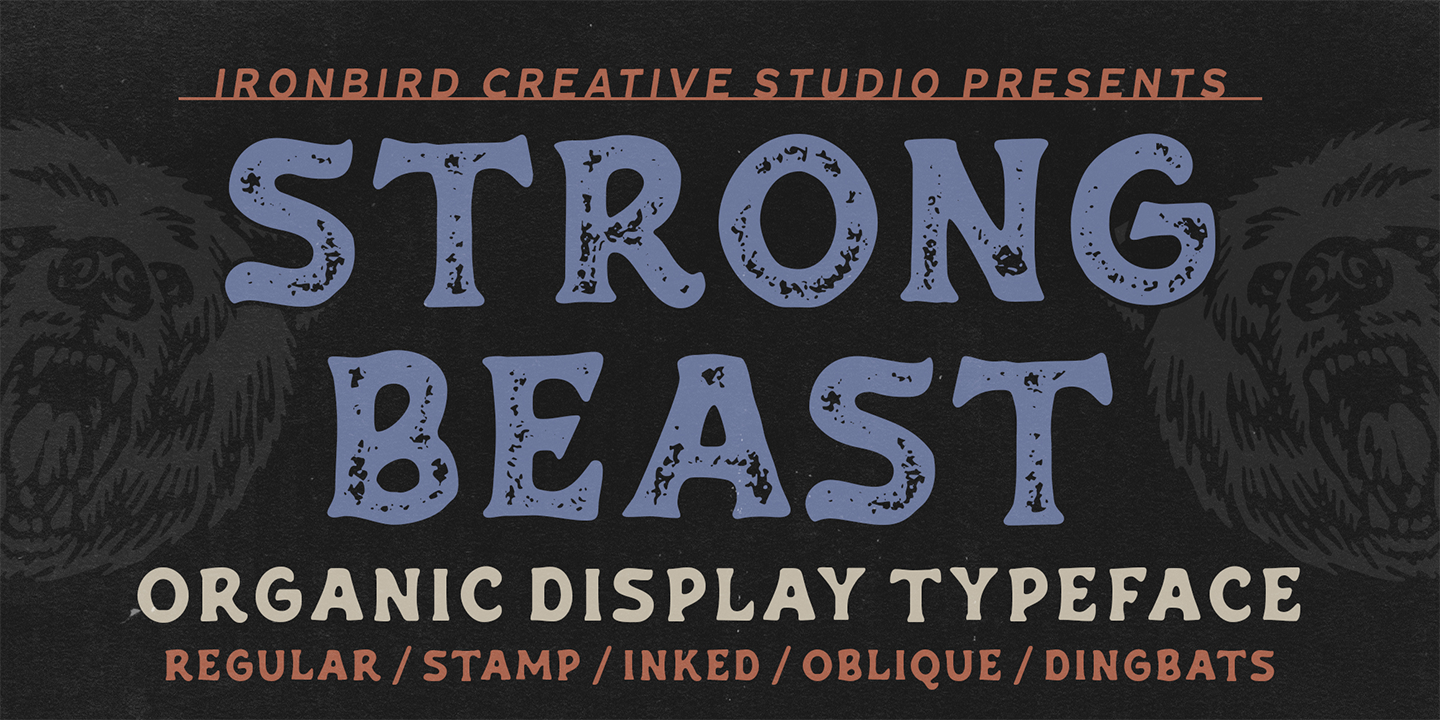
Strong Beast Font Free Download – A ferocious, high-impact display typeface that roars with primal power! Commercial use requires a license, but you can download the free version to unleash its raw energy in your personal projects.
Where Can You Use Strong Beast Font?
This dominant font rules in:
• Fitness/bodybuilding branding (gym logos, supplement packaging)
• Extreme sports graphics (MMA, wrestling, and action sports promotions)
• Fantasy/horror titles (monster-themed games, dark fantasy novels)
• Men's lifestyle branding (barber shops, tattoo parlors, motorcycle clubs)
Why Is Strong Beast Font Exciting?
Strong Beast delivers unmatched typographic aggression with:
Muscular letterforms with exaggerated serifs like claw marks
Strategic texture detailing mimicking rough, battle-worn surfaces
Alternate savage characters for custom brutal looks
Perfect balance between raw power and legibility
Strong Beast Font Family
The complete alpha collection includes:
• Strong Beast Regular (base dominant style)
• Strong Beast Rough (extra battle-damaged version)
• Strong Beast Inline (hollow tribal variant)
• Strong Beast Shadow (3D monster effect)